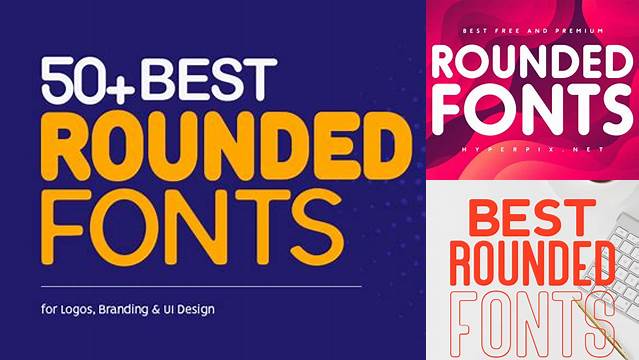
Best Rounded Fonts In Word: A Comprehensive Guide
Are you looking to add a touch of softness and approachability to your documents? If you are, guys, then you've come to the right place! Choosing the right font can drastically change the look and feel of your work. Forget those harsh, angular fonts for a moment and let's dive into the world of rounded fonts. In this comprehensive guide, we will explore the best rounded fonts in Word, perfect for everything from professional reports to creative projects. We'll cover everything you need to know to choose the best rounded fonts for your specific needs. So, let’s get started and discover how to make your text look more inviting and stylish!
What are Rounded Fonts?
Before we dive into specific recommendations, let's clarify what we mean by “rounded fonts.” Rounded fonts are characterized by their soft, circular terminals and strokes, which give them a friendlier, more casual appearance compared to traditional fonts with sharp serifs or square edges. This unique characteristic makes rounded fonts versatile for various applications, from body text to headings, and even in logos and branding materials. The inherent readability and approachability of these fonts make them a favorite choice among designers and writers who aim to create a welcoming and engaging visual experience for their audience. The gentle curves and smooth lines of rounded fonts evoke a sense of warmth and ease, helping to soften the overall tone of any document or design. This makes them particularly effective in scenarios where you want to convey a sense of openness, creativity, or modernity.
Rounded fonts are not just about aesthetics; they also have a psychological impact on the reader. Studies have shown that rounded shapes are generally perceived as friendlier and less threatening than sharp angles. This makes rounded fonts an excellent choice for content aimed at a broad audience, especially when you want to foster trust and engagement. For example, in marketing materials, using a rounded font can help create a more approachable brand image, making customers feel more connected and receptive to the message. Similarly, in educational materials, rounded fonts can make the text appear less intimidating, which can be particularly beneficial for younger learners or individuals who struggle with reading. The consistent curves and even strokes of rounded fonts also contribute to their legibility, making them easy on the eyes and reducing reading fatigue. This is especially important in long-form content, such as reports, articles, or books, where the reader needs to maintain focus and comprehension for extended periods. The clear, simple letterforms of rounded fonts ensure that each character is distinct and easy to recognize, further enhancing readability.
In addition to their aesthetic and psychological benefits, rounded fonts also offer practical advantages in terms of design versatility. They can be effectively used in a variety of contexts, from print to digital media, and can be scaled to different sizes without losing their clarity or impact. This adaptability makes rounded fonts a valuable asset for designers who need to create cohesive visual identities across various platforms and applications. Whether you are designing a website, creating a presentation, or writing a report, rounded fonts can provide a consistent and harmonious look that enhances the overall quality of your work. They also pair well with a wide range of other font styles, allowing you to create interesting typographic hierarchies and visual contrasts. For instance, you might combine a rounded font for your headings with a more traditional serif font for your body text, or use different weights and styles of the same rounded font family to create visual interest and emphasis. The key is to experiment and find combinations that reflect your personal style and the specific needs of your project.
Top Rounded Fonts to Use in Microsoft Word
Now, let's get to the good stuff! Here's a curated list of some of the best rounded fonts in Word that you can start using right away:
1. Nunito
Nunito is a hugely popular sans-serif typeface recognized for its well-balanced rounded terminals, which give it a very friendly and accessible appearance. The font is available in two primary variations: Nunito and Nunito Sans. Nunito, the original version, has rounded terminals and was initially created by Vernon Adams. It is celebrated for its clean, legible design, which makes it ideal for a wide array of applications. This font shines particularly well in web design, branding materials, and user interfaces where clarity and approachability are paramount. Over time, Nunito has evolved into a versatile typeface family, with various weights and styles now accessible, allowing designers and content creators to use it flexibly across different design contexts. The gentle curves and uniform strokes make Nunito a comforting choice for readers, enhancing the overall visual experience without causing eye strain.
Beyond its aesthetic appeal, Nunito’s design also caters to readability. The open forms and generous letter-spacing ensure that the text remains clear and legible, even at smaller sizes. This attribute is particularly advantageous for applications where text density is high, such as in mobile interfaces or densely packed print layouts. Its rounded terminals soften the appearance of the text, making it less imposing and more inviting, which can be beneficial in marketing materials or websites aiming to create a welcoming atmosphere. Nunito’s neutrality also means it pairs well with a wide variety of other fonts, from traditional serifs to more modern sans-serifs, offering designers the freedom to create interesting typographic hierarchies without compromising readability. Its versatility makes it a go-to option for designers looking for a typeface that performs reliably across diverse media.
Nunito Sans, an extension of the original Nunito, retains the core characteristics of its predecessor but broadens the font family with more weight options. This expansion makes Nunito Sans even more adaptable to various design needs. It offers a more comprehensive set of weights, including extra-light, light, regular, semi-bold, bold, and extra-bold, which provides greater flexibility in creating typographic contrast and visual hierarchy. The expanded family makes Nunito Sans particularly useful in branding, where consistent use of font weight can reinforce brand identity. In addition, the different weights allow for better emphasis and organization of content, improving the user experience by guiding the reader through the text seamlessly. Whether it’s used for headlines, body text, or call-to-actions, Nunito Sans provides a cohesive and professional look.
The modern and clean design of Nunito Sans has made it a favorite among web developers and UI/UX designers. Its excellent screen readability and multiple weights make it perfect for creating intuitive and visually appealing digital interfaces. The font’s adaptability ensures that text remains clear and accessible on various devices, from large desktop screens to smaller mobile displays. Nunito Sans is frequently used in websites, mobile apps, and software interfaces, where a clear, modern font can enhance usability and user engagement. Its popularity in the digital realm is a testament to its practicality and aesthetic appeal. Overall, Nunito and Nunito Sans provide a harmonious blend of functionality and visual charm, making them excellent choices for any project that requires a friendly yet professional touch.
2. Cabin
Cabin is a modern sans-serif font family designed by Impallari Type. It's inspired by the humanist sans-serif style, which gives it a warm and approachable feel. What sets Cabin apart is its slightly rounded corners and clean lines, making it highly readable both in print and on screen. The font family includes a variety of weights and styles, from regular to bold, and even italic versions, providing designers and writers with a versatile toolkit for various projects. Cabin's balanced proportions and clear letterforms make it an excellent choice for body text, headlines, and even branding materials. Its elegant yet straightforward design ensures that it remains legible even at smaller sizes, making it suitable for use in mobile applications and web interfaces where clarity is paramount. The font's overall aesthetic is contemporary, yet it retains a timeless quality that prevents it from feeling dated. This makes Cabin a reliable choice for projects that require a professional and inviting appearance.
One of the key strengths of Cabin is its ability to create a welcoming and friendly tone without sacrificing professionalism. The slightly rounded corners add a touch of softness, making it less austere than some of the more geometric sans-serif fonts. This characteristic makes Cabin particularly well-suited for content aimed at a broad audience, where approachability is essential. For example, in marketing materials, Cabin can help to convey a sense of warmth and trust, making potential customers feel more connected to the brand. In educational materials, the font's clarity and soft edges can make the text appear less intimidating, which can be particularly beneficial for younger learners or individuals who struggle with reading. The balanced and harmonious letterforms also contribute to the font's overall readability, reducing eye strain and allowing readers to engage with the text more comfortably.
Cabin's versatility extends to a wide range of design applications. Its clean and legible design makes it an excellent choice for long-form content, such as articles, reports, and books, where sustained readability is critical. The variety of weights and styles within the family allows for effective use of typographic hierarchy, helping to guide the reader through the text and emphasize key points. In branding, Cabin can be used to create a cohesive and professional visual identity. Its timeless aesthetic ensures that the brand will maintain a consistent look and feel across various platforms and media. Moreover, Cabin pairs well with a variety of other font styles, allowing designers to create interesting and visually appealing typographic combinations. It can be effectively combined with both serif and sans-serif fonts, providing designers with the flexibility to create the desired mood and style. Whether used in print or digital media, Cabin provides a harmonious and professional look that enhances the overall quality of the project.
3. Comfortaa
Comfortaa is another fantastic rounded sans-serif font that exudes a friendly and inviting vibe. Designed by Johan Aakerlund, this typeface is characterized by its perfectly circular letterforms and soft, rounded terminals. These features give Comfortaa a unique, almost bubbly personality, making it an excellent choice for projects that require a touch of whimsy and approachability. The font is available in three weights—light, regular, and bold—allowing for a good range of typographic expression. Its distinct design makes it particularly suitable for headlines, logos, and branding materials, where it can easily capture attention and convey a sense of warmth and friendliness. Comfortaa's legibility is also noteworthy, making it a viable option for shorter blocks of body text, especially in designs that aim for a modern and playful aesthetic. The font's even stroke width and consistent curves contribute to its overall visual harmony, making it a pleasant choice for readers.
One of Comfortaa's standout qualities is its ability to bring a lighthearted and approachable tone to any design. The perfectly rounded shapes and soft edges create a sense of comfort and ease, making it an ideal choice for content that aims to engage and connect with the audience on a personal level. This makes Comfortaa particularly effective in marketing materials, websites, and other applications where creating a welcoming atmosphere is crucial. The font's friendly appearance can help build trust and rapport with potential customers, making them feel more receptive to the message being conveyed. In addition, Comfortaa's unique personality makes it a great choice for projects targeting children or young adults, where its playful and approachable style can resonate well. Its distinctive character also makes it a memorable choice for logos and branding, helping to create a visual identity that is both unique and inviting.
Comfortaa's design versatility allows it to be used in a variety of contexts, although it shines brightest in display settings. Its bold and distinctive letterforms make it an excellent choice for headlines and titles, where it can make a strong visual impact. The font's three weights provide sufficient flexibility for creating typographic hierarchy and emphasis within a design. While Comfortaa may not be the best choice for extensive blocks of body text due to its slightly wider letterforms, it works well in shorter paragraphs, captions, and callouts. It can also be effectively combined with other fonts to create interesting typographic pairings. For example, pairing Comfortaa with a more traditional serif font can create a balanced and visually appealing contrast. Comfortaa's ability to add a touch of playfulness and warmth to any design makes it a valuable asset for designers looking to create a friendly and engaging visual experience. Whether used in print or digital media, Comfortaa brings a unique charm that can help a project stand out.
4. Quicksand
Quicksand is a geometric sans-serif typeface designed by Andrew Paglinawan. This font features rounded terminals that contribute to its friendly and modern appearance. Quicksand's design is characterized by its slightly condensed letterforms and clean lines, making it highly legible across various media. The font family includes a range of weights, from light to bold, providing ample flexibility for different design needs. Its contemporary aesthetic and excellent readability make it a popular choice for web design, branding, and print materials. Quicksand’s geometric structure gives it a sophisticated and clean look, while its rounded corners add a touch of warmth and approachability. This balance makes it suitable for a variety of applications, from corporate communications to creative projects. The font’s versatility is further enhanced by its performance at different sizes, ensuring readability in both headlines and body text.
One of Quicksand’s key strengths is its ability to convey a sense of modernity and sophistication while maintaining a friendly and approachable tone. The rounded terminals soften the geometric structure, preventing it from appearing too sterile or impersonal. This makes Quicksand particularly effective in scenarios where you want to project a contemporary image without sacrificing warmth. For instance, in website design, Quicksand can help create a modern and user-friendly experience, making visitors feel welcome and engaged. In branding, the font’s clean and contemporary appearance can help establish a sense of trustworthiness and professionalism. The subtle curves and rounded edges make it more inviting than more rigid geometric fonts, which can sometimes feel cold or impersonal. Quicksand’s balanced design also ensures that it pairs well with other fonts, allowing for creative and effective typographic combinations.
Quicksand's adaptability makes it a reliable choice for a wide range of design applications. Its legibility and clean lines make it suitable for both headlines and body text, making it a versatile option for various types of content. The font’s different weights provide designers with the tools to create clear typographic hierarchies, ensuring that key information stands out. In web design, Quicksand’s excellent screen rendering makes it a dependable choice for websites and digital interfaces. In print, its clean lines and balanced proportions ensure that it remains legible even at smaller sizes. Quicksand’s geometric structure also makes it a great choice for logos and branding materials, where a clean and modern look is desired. The font’s versatility is further enhanced by its availability in multiple weights, allowing designers to create visual interest and emphasis. Whether used in print or digital media, Quicksand provides a harmonious and contemporary look that enhances the overall quality of the project.
5. Raleway
Raleway is an elegant sans-serif typeface family designed initially by Matt McInerney as a single thin weight. Over time, it has been expanded into a full family with a wide range of weights and styles, making it a versatile and popular choice for designers. Raleway is characterized by its clean, geometric lines and slightly rounded terminals, giving it a sophisticated yet approachable appearance. The font’s distinctive letterforms and balanced proportions make it highly legible, both in print and on screen. Raleway’s modern aesthetic and versatility have made it a favorite for various design applications, including web design, branding, and print materials. Its initial thin weight made it particularly popular for headlines and display settings, but the expanded family now includes weights suitable for body text as well.
One of Raleway’s key strengths is its elegant and refined design, which makes it suitable for projects that require a touch of sophistication. The slightly rounded terminals soften the geometric structure, making it more approachable than purely geometric sans-serif fonts. This balance makes Raleway an excellent choice for brands looking to convey a sense of modernity and professionalism while maintaining a friendly image. In web design, Raleway’s clean lines and excellent screen rendering make it a dependable choice for websites and digital interfaces. In branding, the font’s elegant appearance can help establish a sense of quality and attention to detail. The versatility of the Raleway family allows designers to create cohesive visual identities across various platforms and media. Its ability to convey both elegance and approachability makes it a valuable asset for a wide range of projects.
Raleway's extensive range of weights and styles provides designers with the flexibility to create sophisticated typographic hierarchies. The font’s thin weights are perfect for headlines and display settings, while the heavier weights are well-suited for body text and emphasis. This versatility makes Raleway a reliable choice for projects that require a consistent and harmonious look across different types of content. Its geometric structure and clean lines ensure that it remains legible even at smaller sizes, making it suitable for both print and digital applications. Raleway’s elegant appearance and excellent readability make it a popular choice for corporate communications, editorial design, and website typography. The font’s ability to convey a sense of sophistication and modernity makes it a valuable tool for designers looking to create a polished and professional visual identity. Whether used in print or digital media, Raleway provides a refined and contemporary look that enhances the overall quality of the project.
How to Install and Use New Fonts in Word
Okay, so you've got your eye on a fantastic rounded font. Now, how do you actually get it into Word and start using it? Don’t worry, it's a piece of cake! Here’s a quick guide to help you install and use new fonts in Microsoft Word:
- Download the Font: First things first, you need to download the font file. Many websites offer free and premium fonts. Make sure the font you download is compatible with your operating system (usually a .ttf or .otf file). Always download fonts from reputable sources to avoid any potential security risks.
- Install the Font (Windows):
- Locate the downloaded font file (usually in your Downloads folder).
- Right-click on the font file and select “Install”. This will install the font for all applications on your computer.
- Alternatively, you can open the font file and click the “Install” button at the top of the window.
- Another method is to manually copy the font file to the Fonts folder in your Windows directory (usually C:\Windows\Fonts).
- Install the Font (Mac):
- Double-click the downloaded font file. This will open the Font Book application.
- Click the “Install Font” button at the bottom of the window. The font will be installed and available for use in all applications.
- Open Microsoft Word: Once the font is installed, open or restart Microsoft Word. This ensures that Word recognizes the newly installed font.
- Select Your Font:
- In Word, go to the “Home” tab.
- In the “Font” section, click the dropdown menu to see the list of available fonts.
- Scroll through the list or type the name of your newly installed font in the search bar.
- Select the font, and voila! You can now start typing with your rounded font.
Tips for Choosing the Right Rounded Font
Choosing the right rounded font can make a big difference in how your document is perceived. Here are some tips to help you make the best choice:
- Consider Your Project: What is the purpose of your document? A professional report might need a more subtle rounded font, while a children's book could benefit from a more playful option. Think about the overall tone and message you want to convey.
- Readability is Key: Even with rounded fonts, readability is crucial. Make sure the font is easy to read, especially for body text. Test the font at different sizes to see how it looks.
- Pairing Matters: Think about how your rounded font will pair with other fonts. A rounded font for headings might look great with a classic serif font for the body text. Experiment with different combinations to find what works best.
- Test It Out: Before committing to a font for a large project, test it out in a sample document. See how it looks with your text and design elements. This will help you catch any potential issues early on.
So there you have it, guys! A deep dive into the world of best rounded fonts in Word. Using rounded fonts can add a touch of friendliness and warmth to your documents, making them more inviting and engaging. Whether you’re working on a professional presentation or a creative project, the right font can make all the difference. Experiment with the fonts we’ve discussed—Nunito, Cabin, Comfortaa, Quicksand, and Raleway—and see how they can elevate your work. Remember, the goal is to choose a font that not only looks good but also enhances readability and complements your overall design. Happy font hunting!